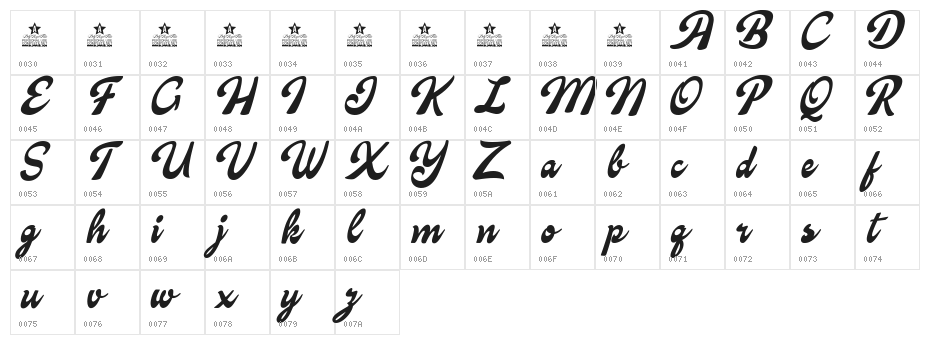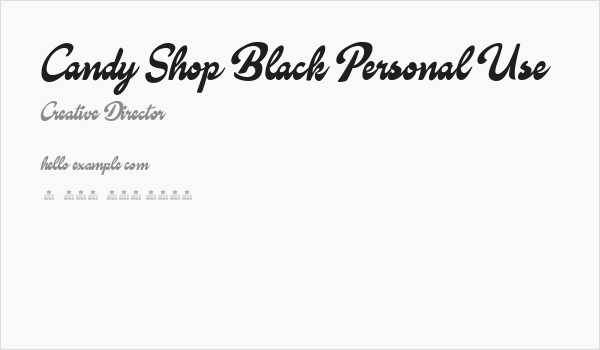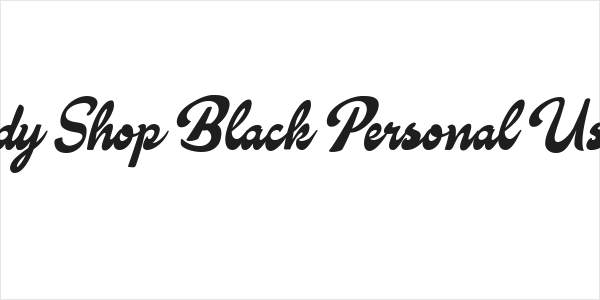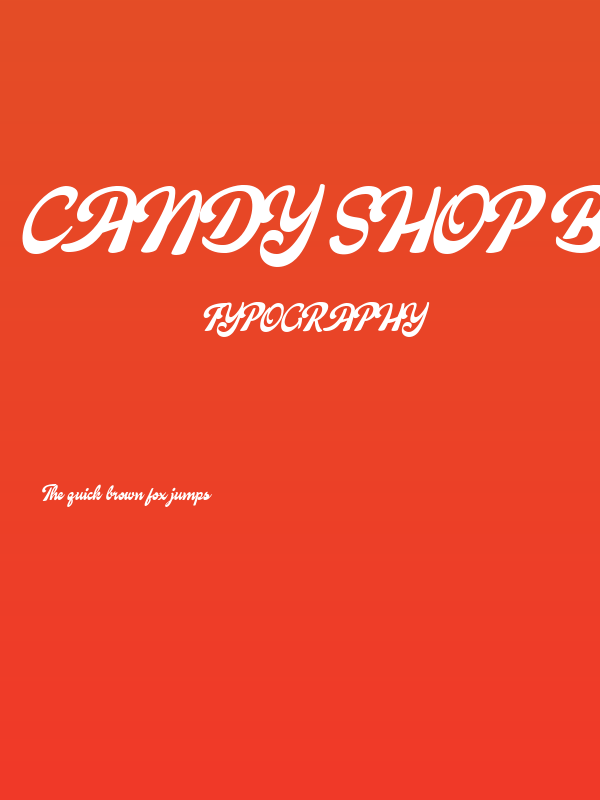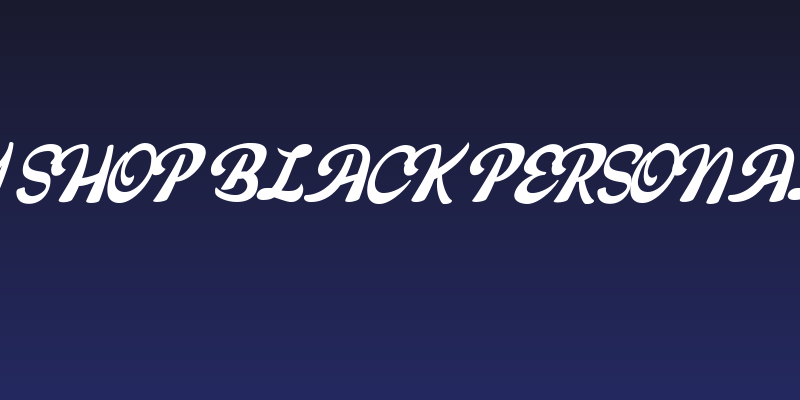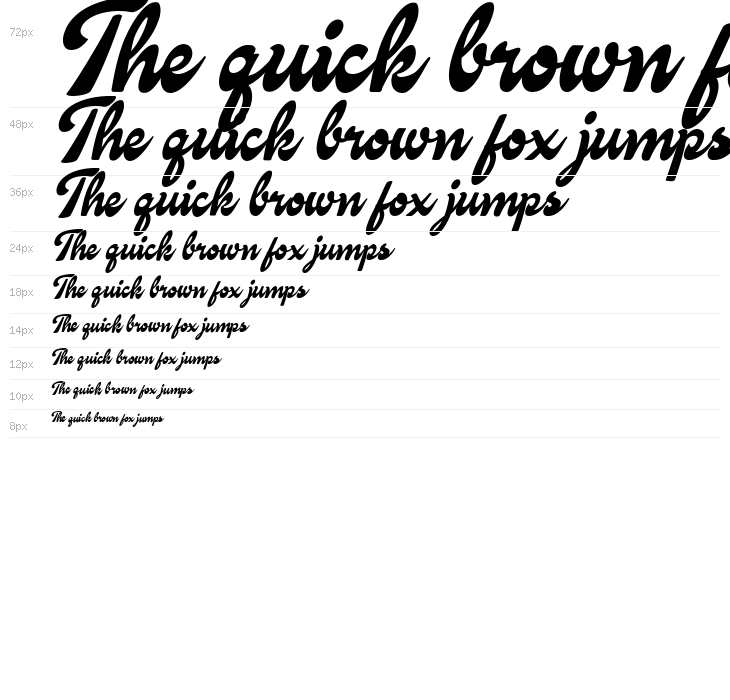
Candy Shop Black Personal Use Font
Candy Shop Black Personal Use Description
This font features a bold, cursive style with a playful and energetic flair. The letters are interconnected, creating a fluid and continuous flow that is reminiscent of handwriting. The uppercase letters are slightly more ornate, with exaggerated curves and loops, while the lowercase letters maintain a consistent and smooth appearance. The font has a strong presence due to its thick strokes and high contrast between thick and thin lines, making it highly legible and impactful. The overall design is both modern and nostalgic, evoking a sense of fun and creativity.